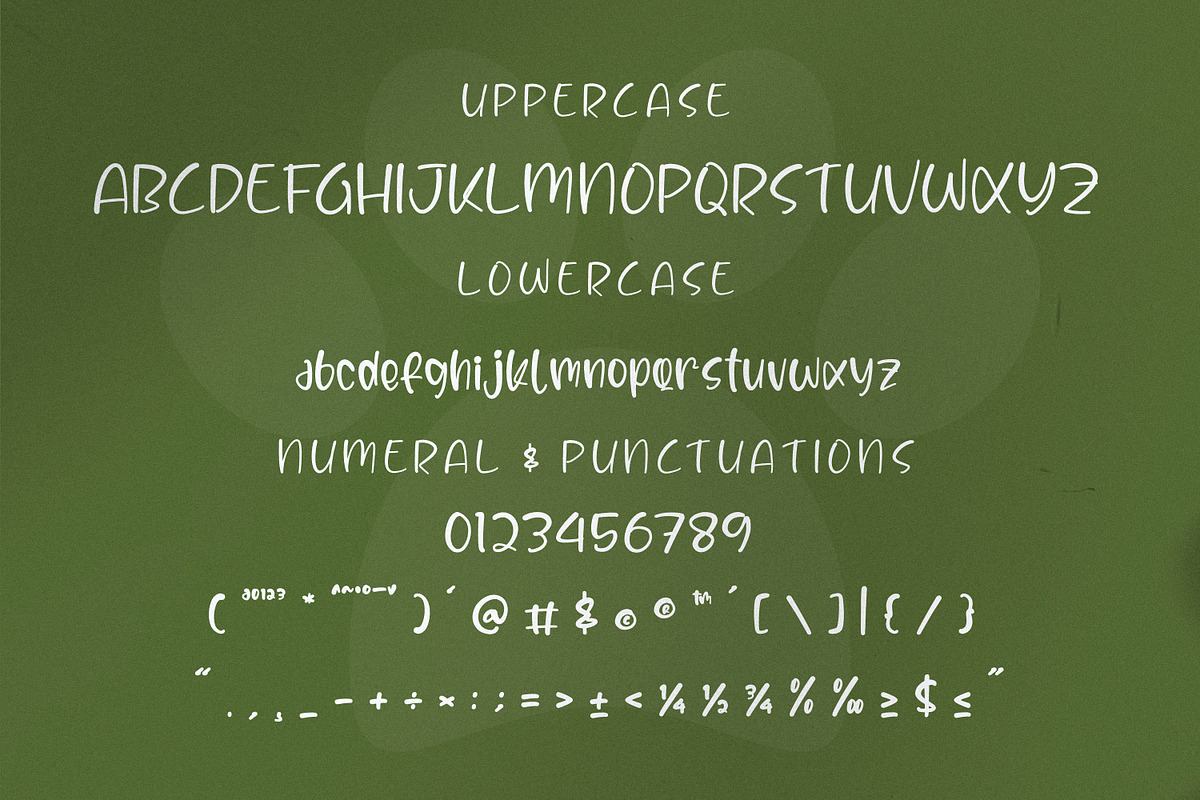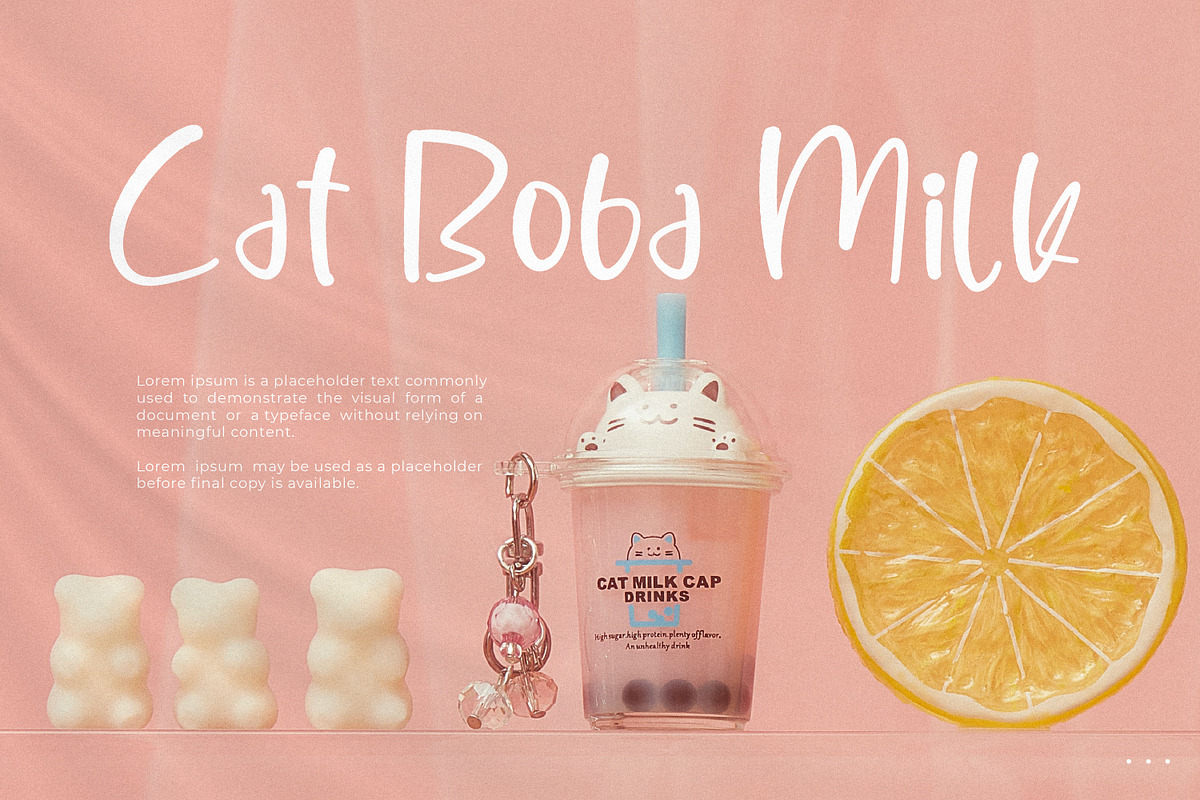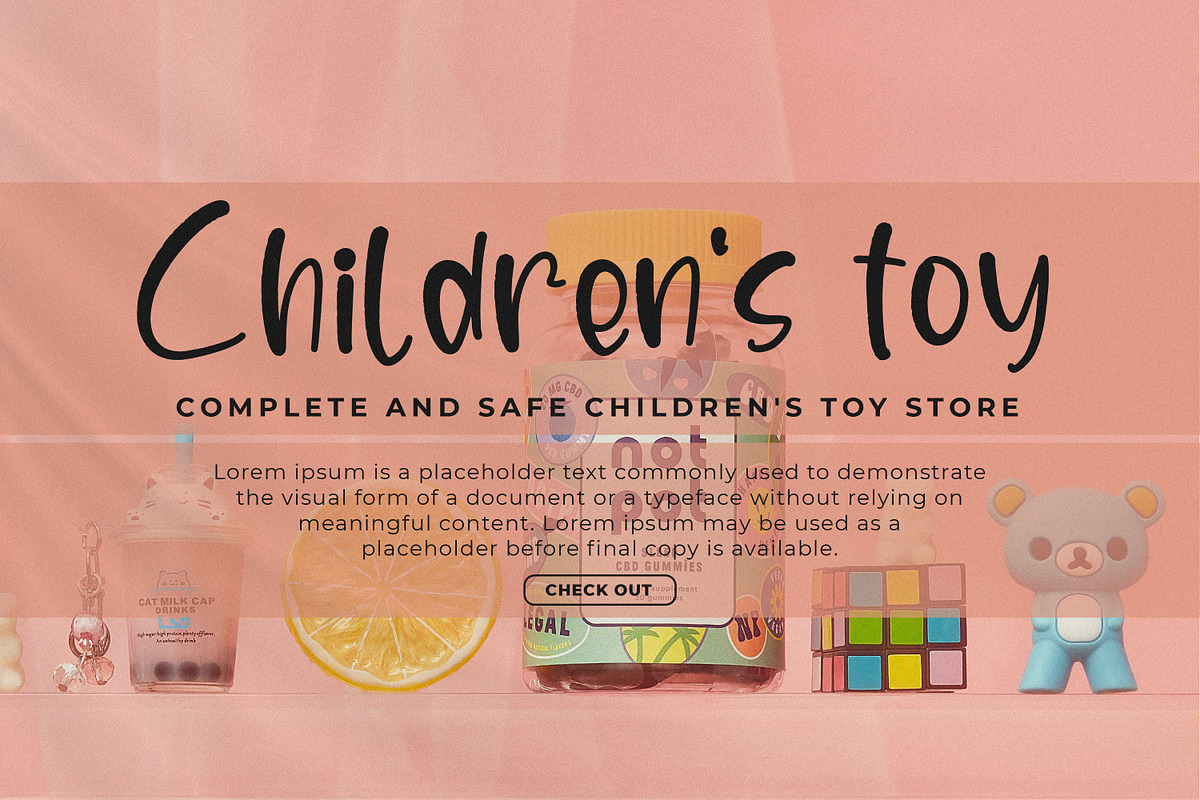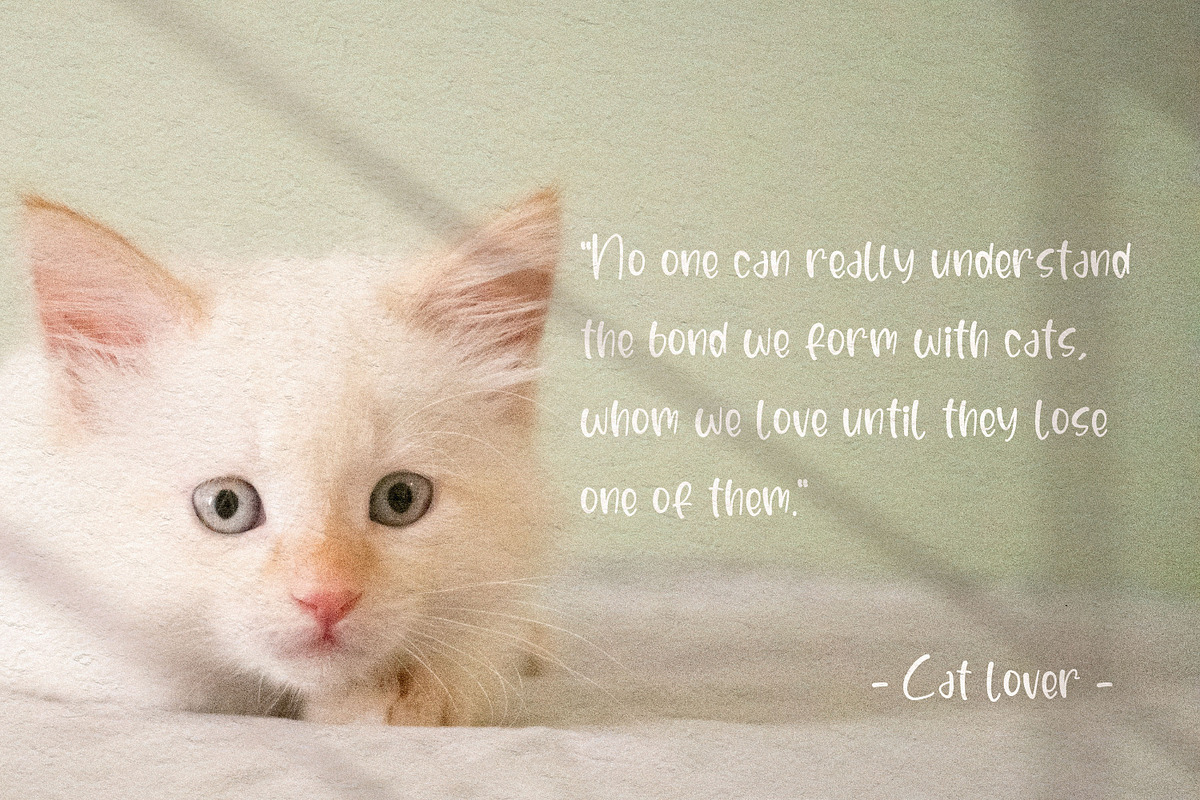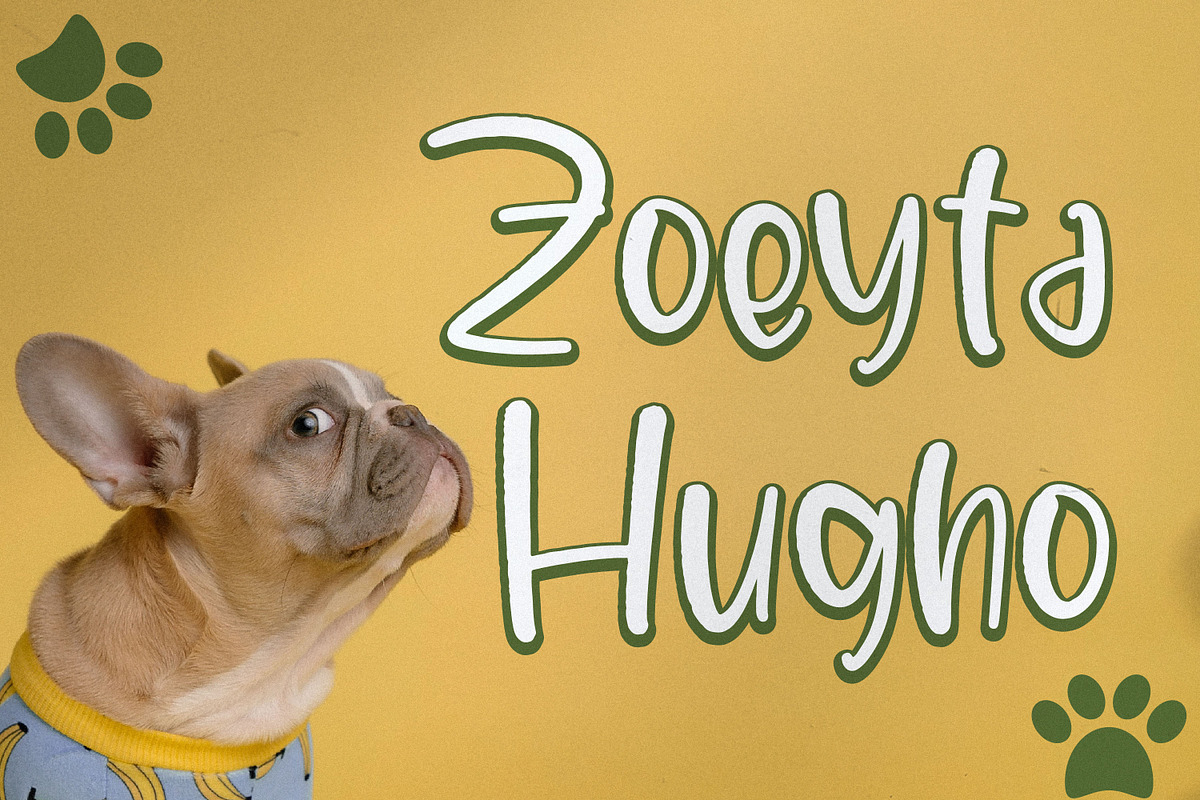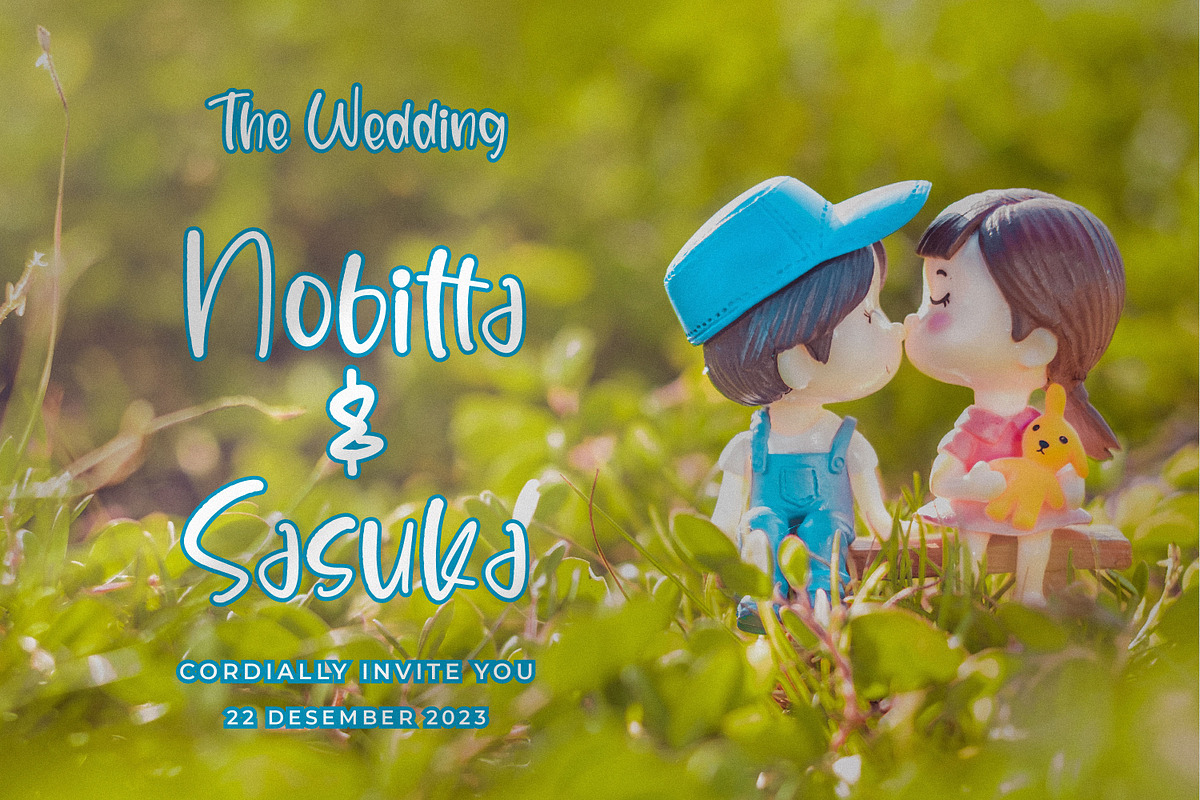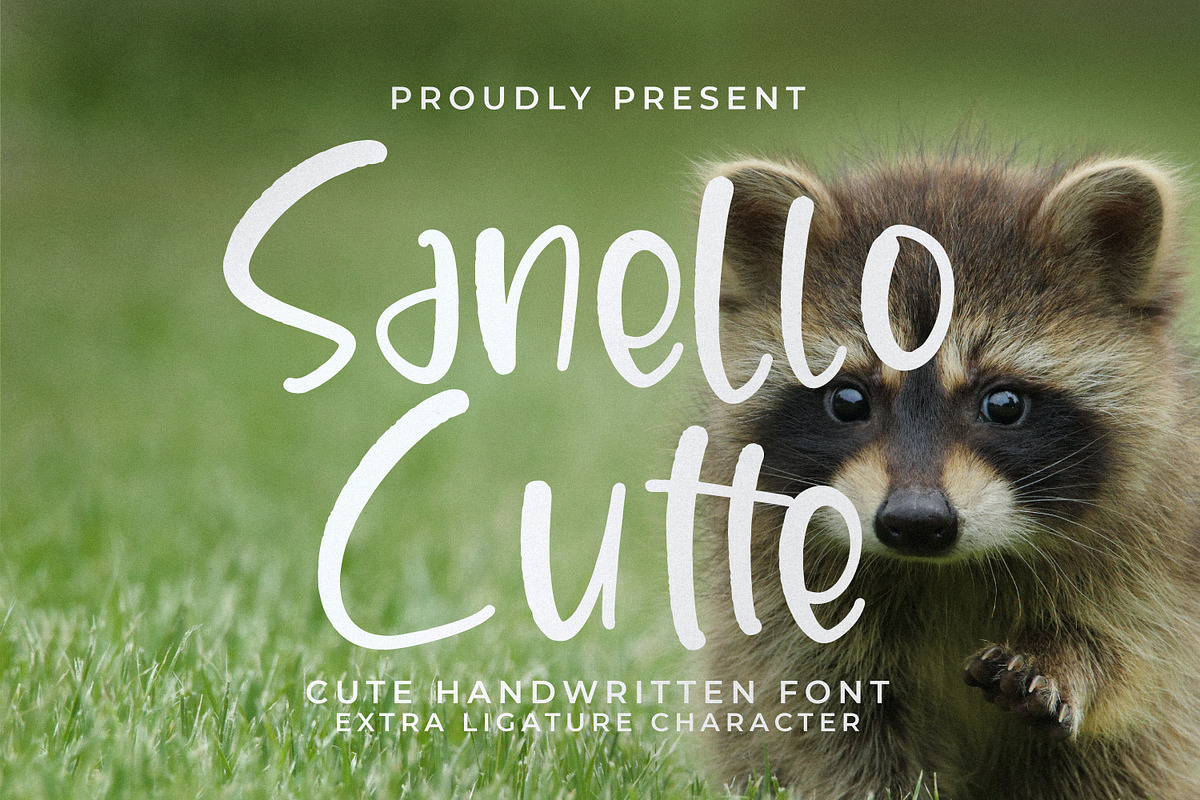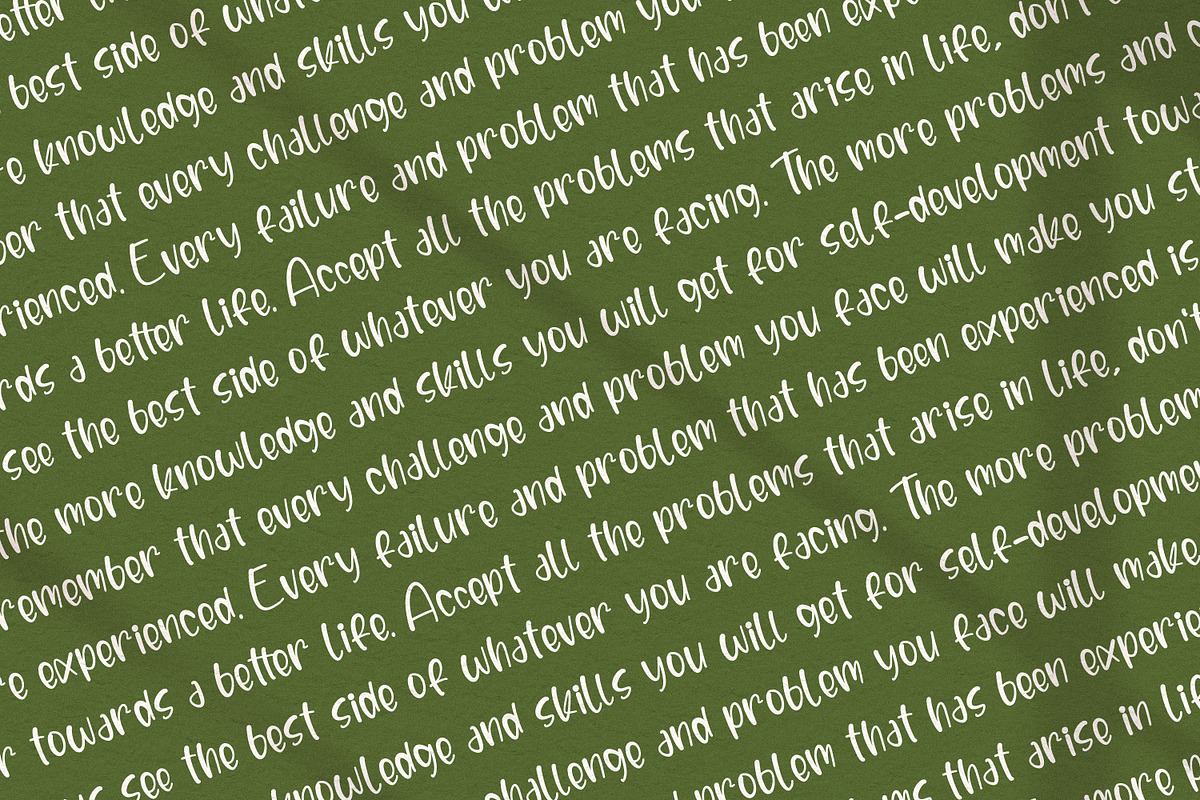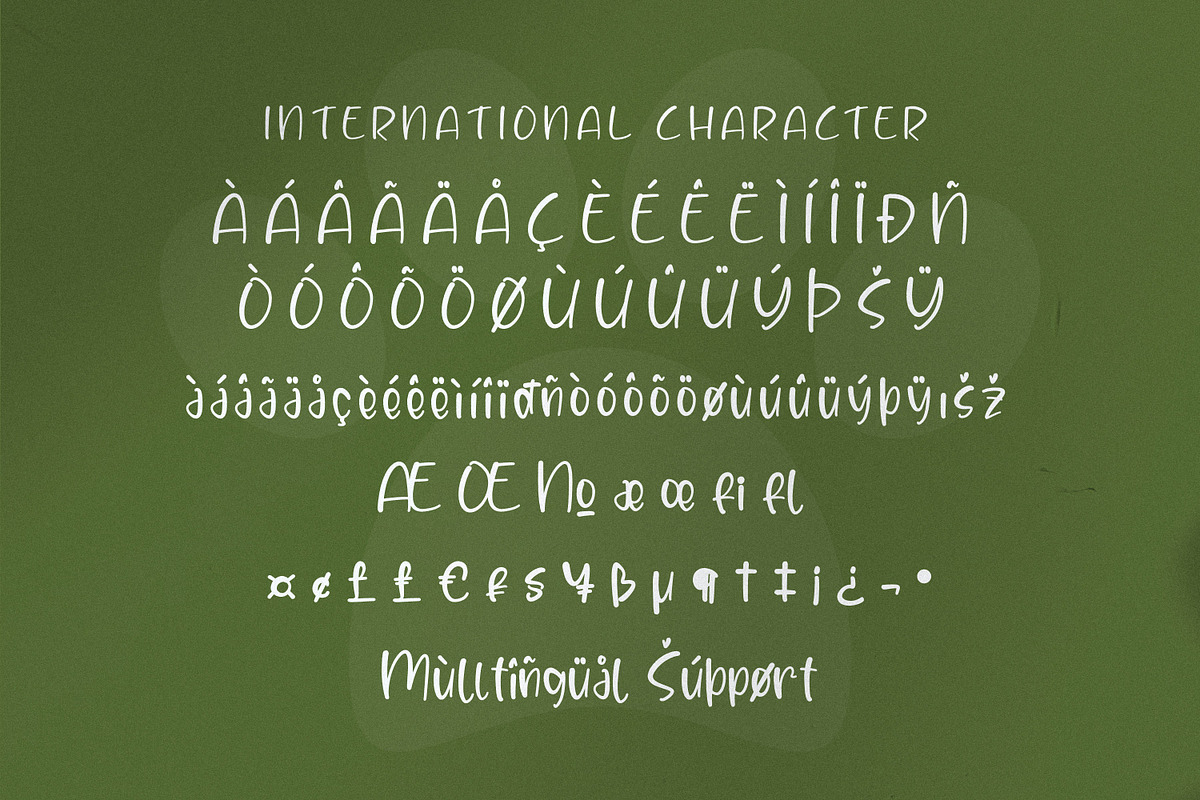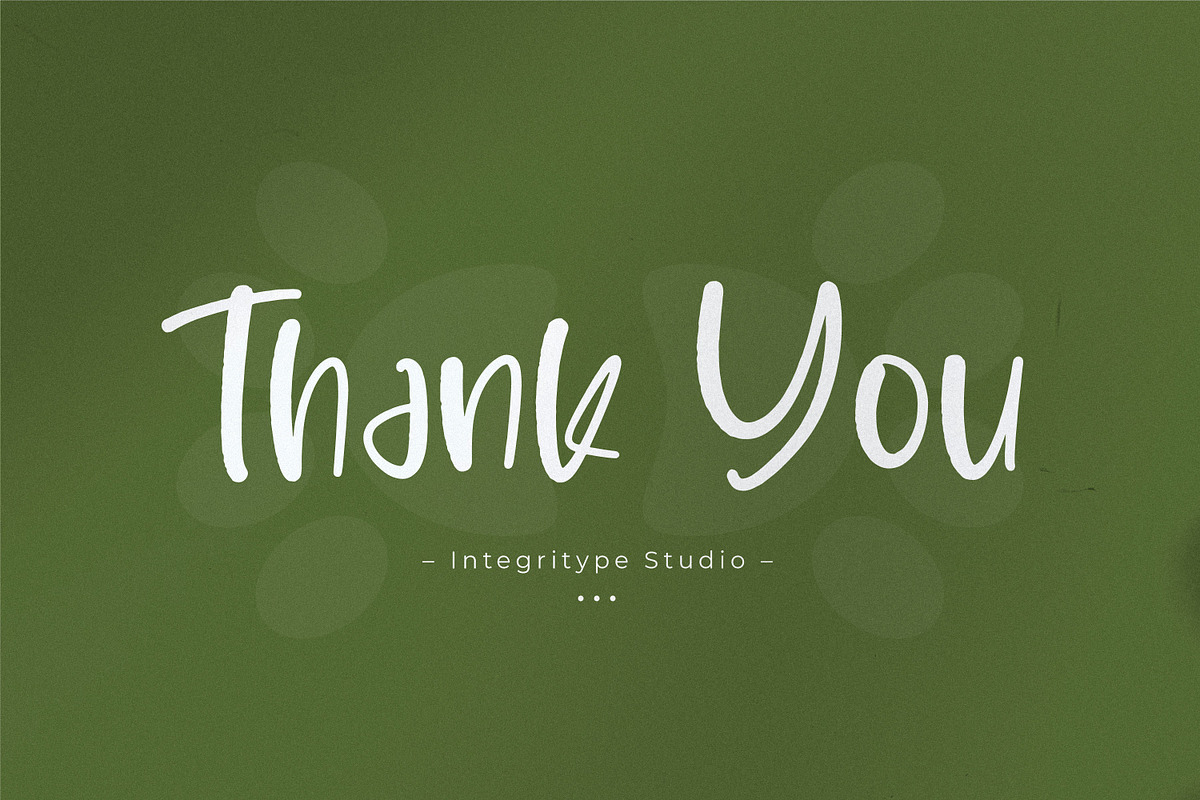
Sanello Cutte
Sanello Cutte - Cute Handwritten Font, from Integritype Studio, is a premium Cute Handwritten Font, suitable for any projects such as: logos, branding projects, homeware designs, product packaging, mugs, quotes, posters, shopping bags, t-shirts, book covers, name card, invitation cards, greeting cards, label, photography, watermark, special events, and all your other luxury projects that need a premium signature taste.
Ligature, Alternate & Swashes
Fonts include support for 65 languages ; Afrikaans, Albanian, Asu, Basque, Bemba, Bena, Breton, Catalan, Chiga, Cornish, Danish, Dutch, English, Faroese, Filipino, French, Friulian, Galician, German, Gusii, Indonesian, Irish, Italian, Kabuverdianu, Kalenjin, Kinyarwanda, Luo, Luxembourgish, Luyia, Machame, Makhuwa-Meetto, Makonde, Malagasy, Manx, Morisyen, North Ndebele, Norwegian Bokmål, Norwegian Nynorsk, Nyankole, Oromo, Portuguese, Quechua, Romansh, Rombo, Rundi, Rwa, Samburu, Sango, Sangu, Scottish Gaelic, Sena, Shambala, Shona, Soga, Somali, Spanish, Swahili, Swedish, Swiss, German, Taita, Teso, Uzbek (Latin), Volapük, Vunjo, Zulu,